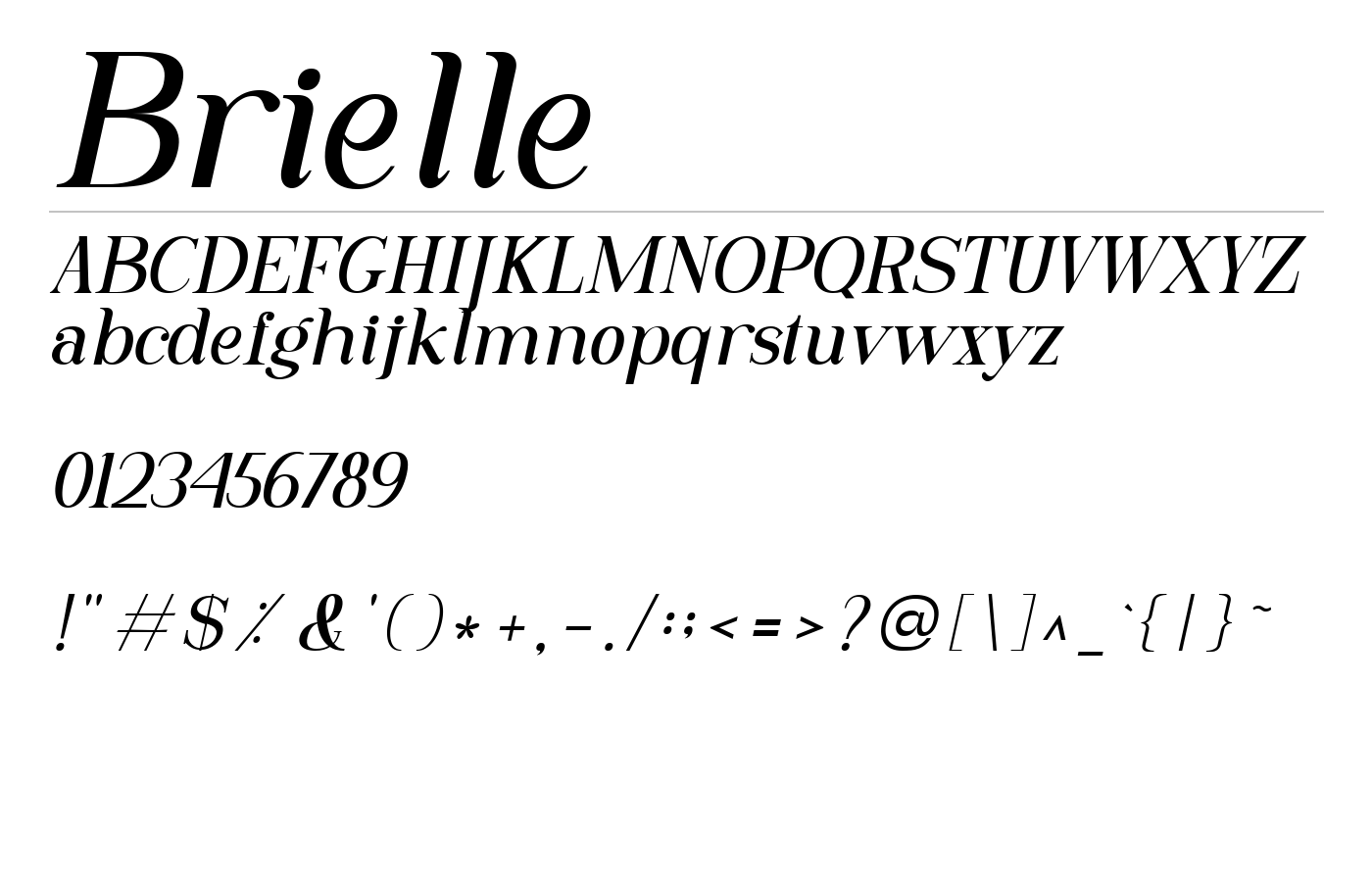
Brielle is an elegant serif font with a refined, modern touch, featuring a graceful italic style and moderate stroke contrast that adds sophistication without being overly dramatic. Its smooth, slightly condensed letterforms with distinctive single-story lowercase letters and delicate serifs make it ideal for upscale editorial use, fashion branding, and stylish headlines where a polished, classy feel is desired. This font works beautifully in contexts that require a blend of tradition and contemporary elegance, offering readability and a luxurious aesthetic.
Brielle Font
About Brielle Font
| Designer | dealitastudio |